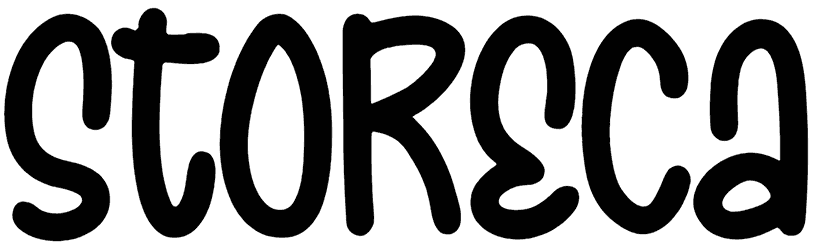
Storeca Font
Set your imagination free with Storeca, a fantasy font inspired by magical storybooks and children’s handwriting. This baby font is created with very prominent letters and has become a favorite typography.
The non-angled edges and smooth curves make it easy to play with its letters for various projects, and do not strain the eyes in any format. With this powerful tool, you can bring all your creative fantasies to life in the form of posters, stationery, t-shirts, and titles.